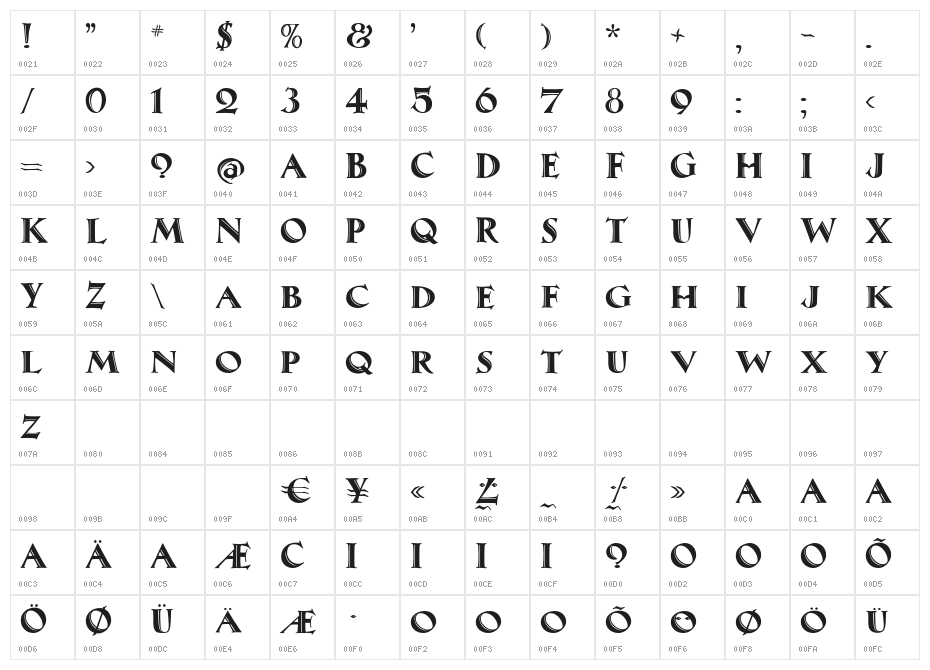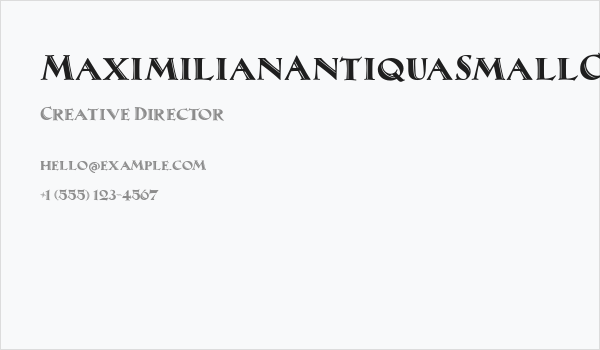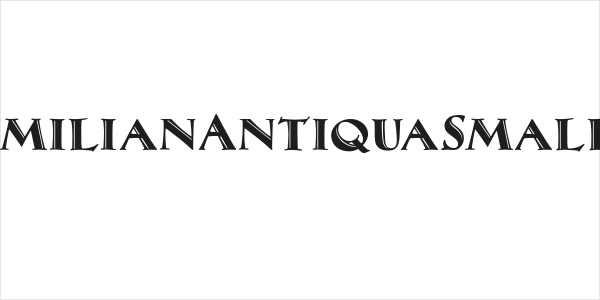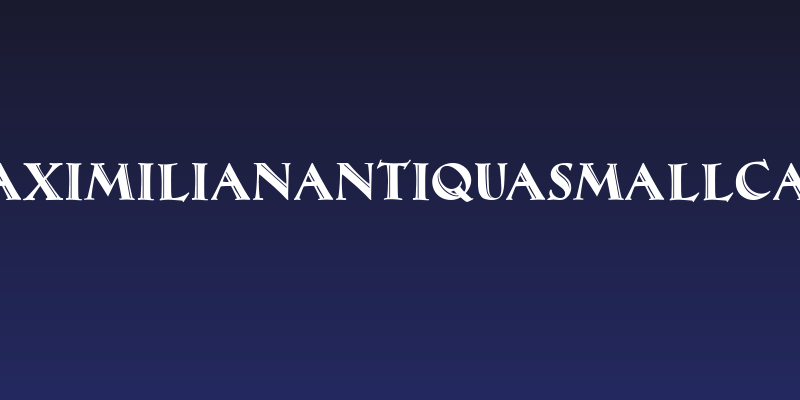
MaximilianAntiquaSmallCaps Font
MaximilianAntiquaSmallCaps Description
This font exudes a classic and elegant style, characterized by its sharp serifs and high contrast between thick and thin strokes. The uppercase letters are bold and commanding, with a distinct presence that makes them ideal for formal and sophisticated designs. The numerals maintain the same stylistic features, ensuring consistency across different types of content. Special characters are crafted with the same attention to detail, making them suitable for a variety of applications. The overall design is reminiscent of traditional serif fonts, yet it carries a unique flair that sets it apart.
| Use Case | Headlines, Logos, Editorial |
| Proposed Projects | Perfect for book covers, formal invitations, branding for luxury products, and editorial layouts. |